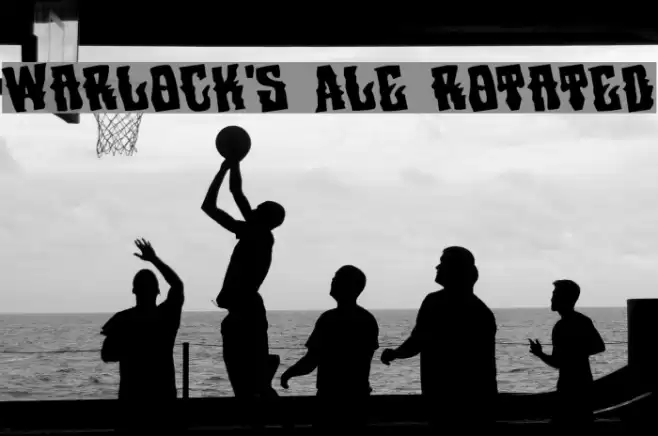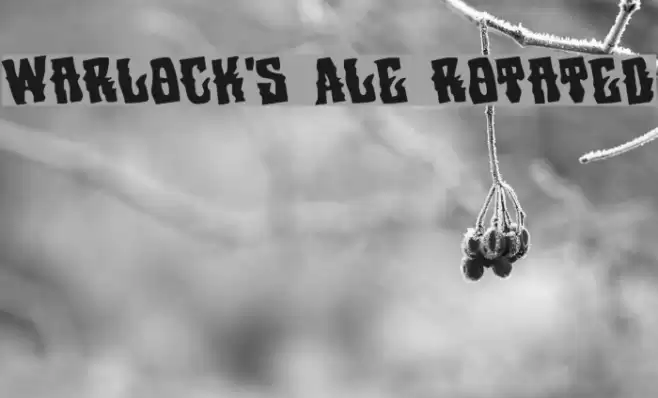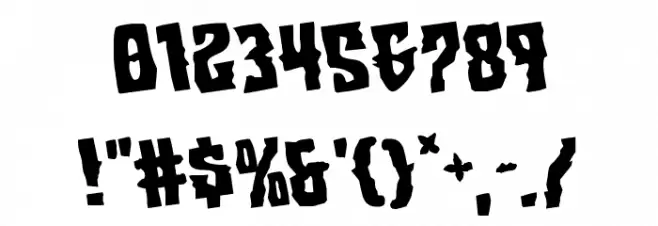
Warlock's Ale Rotated Font
Warlock's Ale Rotated Description
This font features a bold and dramatic style with a distinct gothic influence. The characters are heavily stylized with sharp, angular edges and irregular shapes, giving it a unique and edgy appearance. The uppercase and lowercase letters maintain a consistent theme, with exaggerated serifs and a slightly distressed look that adds to its vintage charm. The numbers and special characters follow the same design principles, ensuring a cohesive look across all glyphs. This font is perfect for projects that require a strong visual impact and a touch of mystery or fantasy.
A bold, gothic-inspired font with sharp, angular edges and a vintage, distressed look from Horror fonts.
- Proposed Projects: Ideal for Halloween-themed designs, fantasy book covers, movie posters, and branding for edgy or alternative products.
- Overall Style: Vintage, Gothic